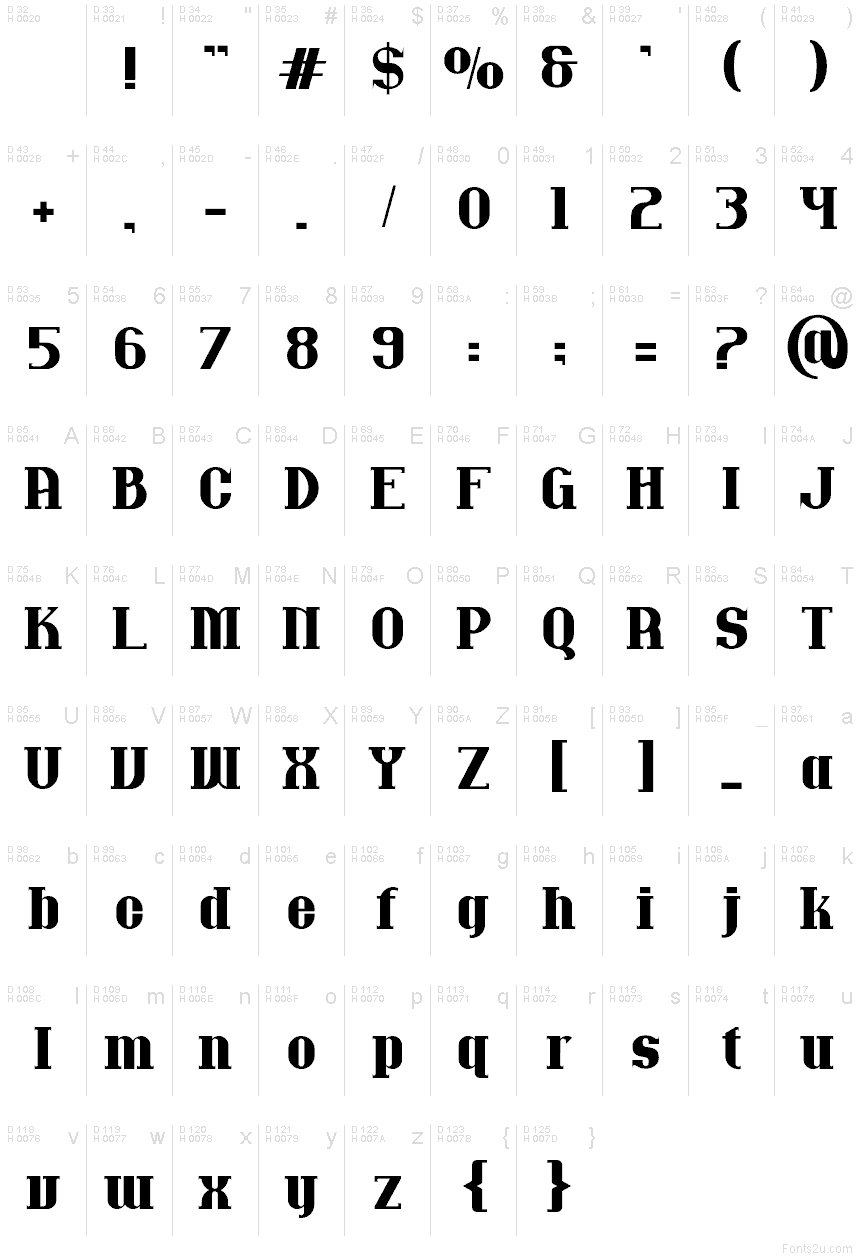
Truly Quirky
Truly Quirky font is a serif typeface designed by Gilang Ternadho. It offers a modern yet vintage-inspired aesthetic with a commanding presence, delivering an elegant and sophisticated appearance. This free font is perfect for projects that demand attention and need to convey beauty through typography.
This versatile typeface can be used for magazine titles, social media posts, advertisements, website headers, banners, posters, book covers, flyers, branding designs, typographic logos and even wedding invitations.